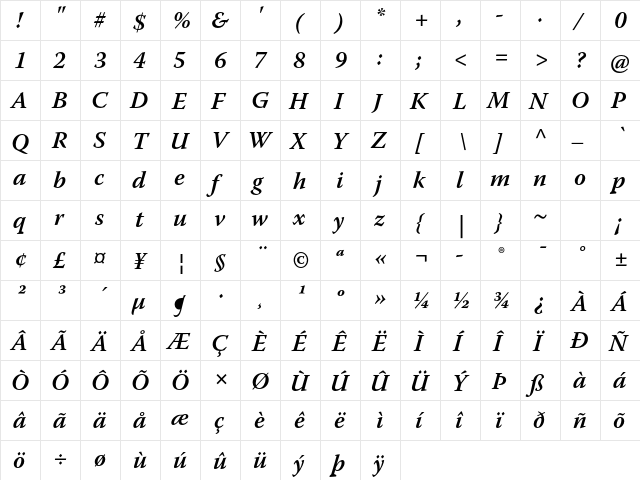
Warnock Pro Semibold Italic
| Designer | Robert Slimbach |
Design Context for Warnock Pro Typeface
Warnock Pro offers clean, dependable letterforms without strong stylistic allegiance, making it a practical choice for designers who need flexibility. The slanted form adds forward momentum and visual energy. Its bold stroke weight gives it real presence on the page.
Pro Tip: Try Warnock Pro for annotation and caption copy alongside an upright companion — the contrast in angle creates a dynamic but ordered typographic system.